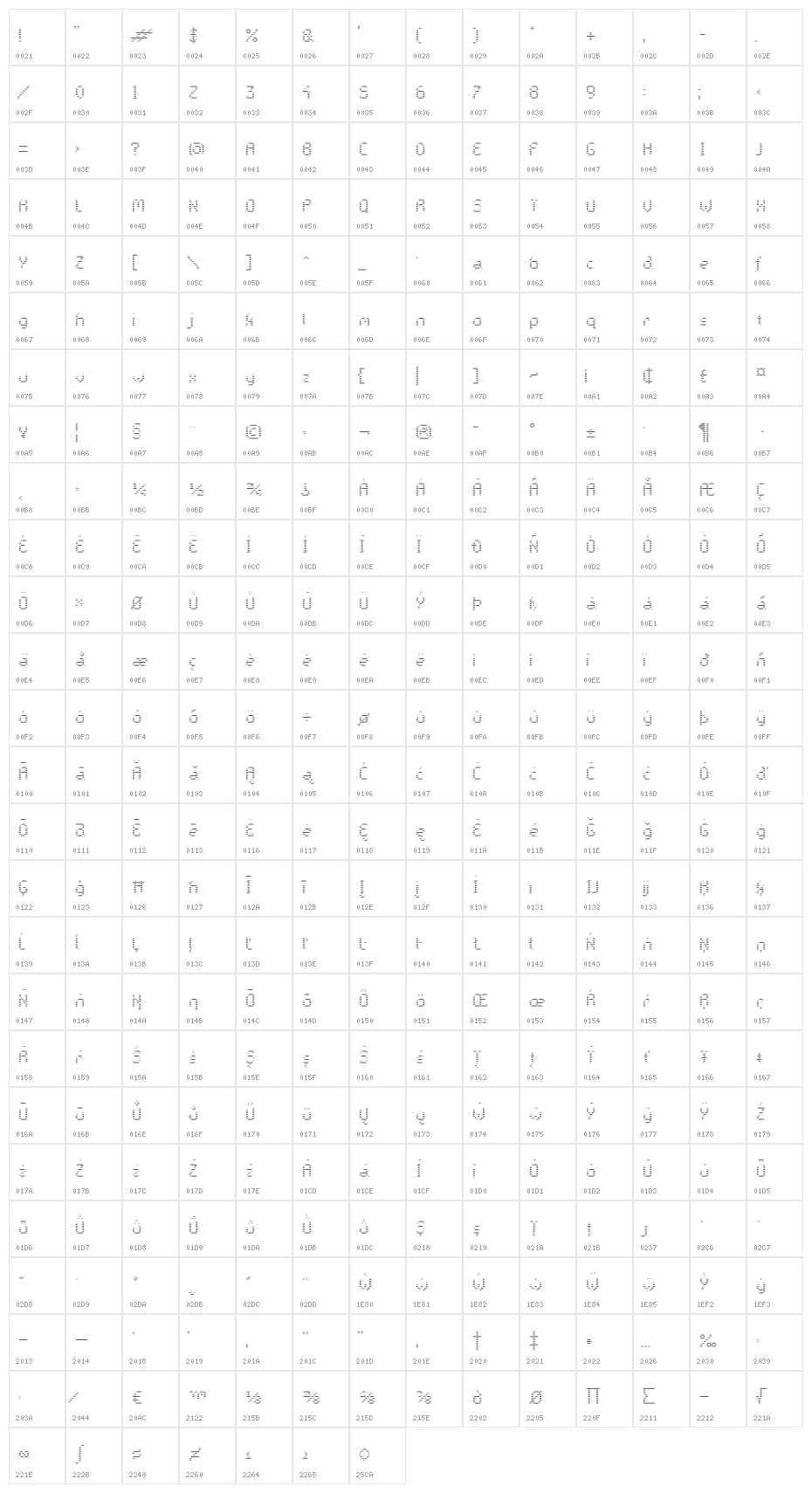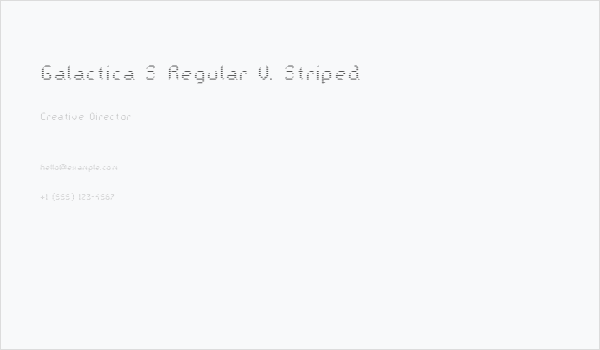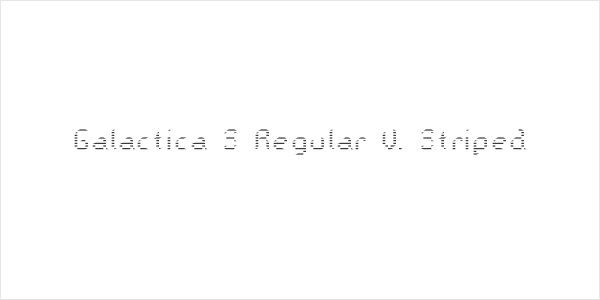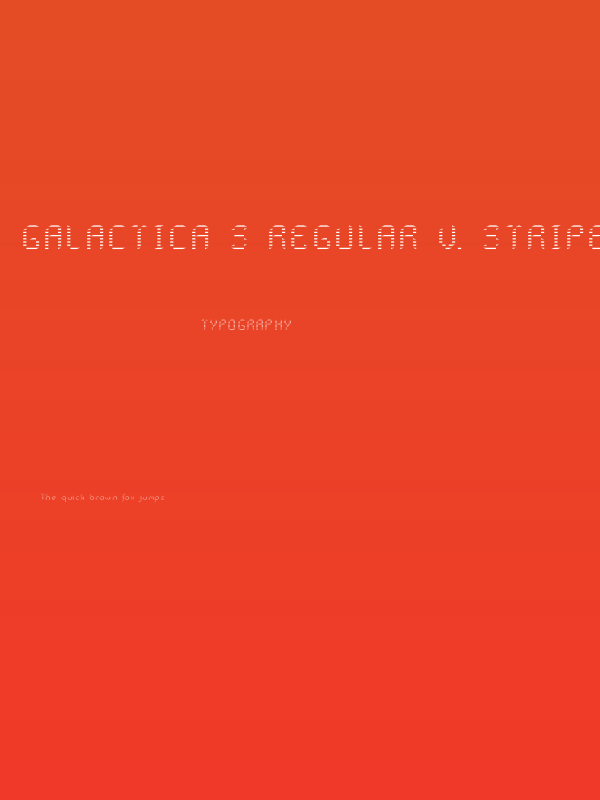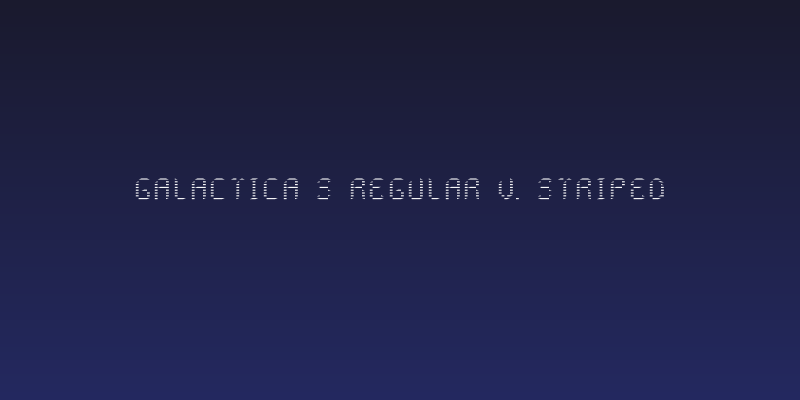
Galactica S Regular V. Striped Font
Galactica S Regular V. Striped Description
This font features a unique striped design that gives it a futuristic and digital appearance. Each character is composed of horizontal lines with consistent spacing, creating a visually striking effect. The uppercase and lowercase letters maintain a uniform style, while the numbers and special characters follow the same striped pattern. This font's geometric structure and clean lines make it ideal for modern and tech-oriented designs. The overall aesthetic is both innovative and eye-catching, suitable for projects that require a distinctive and contemporary look.
| Proposed Projects | Ideal for tech branding, digital media, futuristic posters, and innovative product packaging. |